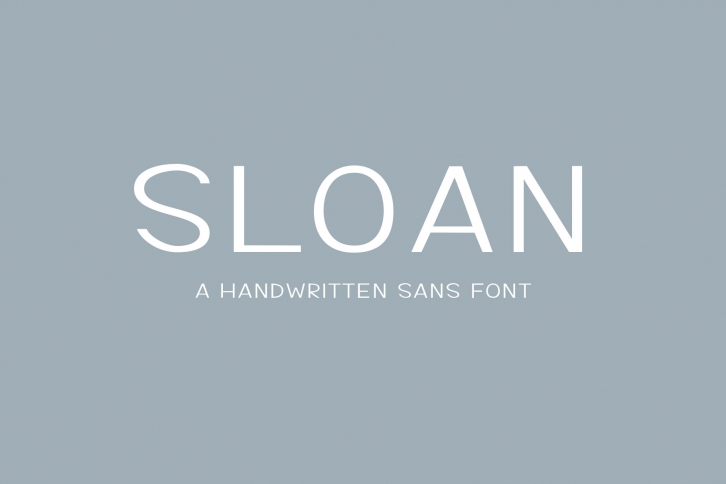
Sloan is a great font that was designed by Affinity Grove. Imagine the amount of combinations you can create using this font! The archive is 17.38 MB and it was released on August 15, 2018. Sloan looks beautiful on wedding invitations, greeting cards, logos, posters, labels, t-shirt designs, logos, business cards and is perfect for use in ink or watercolor works, fashion, magazines, packaging and food menus, children's books and more!